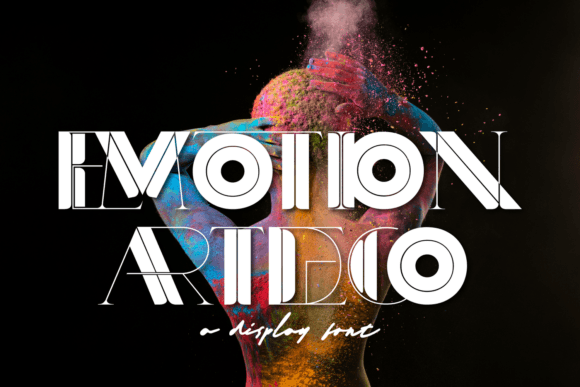
Introducing Emotion ArtDeco Font, a modern Art Deco-inspired masterpiece that evokes elegance, luxury, and sophistication. Prepare to be swept away by its meticulously crafted geometric shapes and razor-sharp letterforms. This font is an ode to the roaring twenties, capturing the essence of Art Deco's timeless glamour. Unleash your creativity and make a grand statement with Emotion ArtDeco.
With Emotion ArtDeco, your designs will radiate opulence and panache. Picture your website, posters, invitations, and headlines adorned with this exquisite font. Its versatility extends to cards, scrapbooking, gift wrap, packaging, and beyond. Let Emotion ArtDeco transform your creative projects into masterpieces that captivate and inspire.
This font's OpenType features elevate it beyond the ordinary, offering 100 ligatures, alternates, numbers, punctuation, and support for multiple languages. Its versatility knows no bounds, allowing you to craft designs that resonate with a global audience.
Step into the world of Art Deco grandeur with Emotion ArtDeco Font. Its timeless elegance and modern twist will add a touch of luxury to any project. Let your designs speak volumes and leave a lasting impression. Dive into the world of Emotion ArtDeco and unlock the boundless possibilities of creative expression.